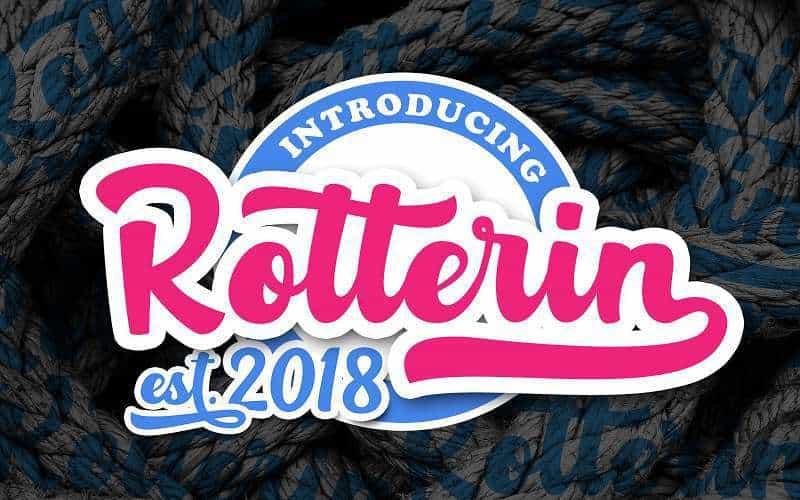
Discover Rotterin Script Font, part of the Brush Calligraphy collection—a versatile and unique font perfect for adding a personal touch to your projects. Download it for free and enjoy crafting designs with style, from invitations to social media posts. This font is available exclusively for personal use, giving you the freedom to create without limits. Unlock your creativity with Rotterin Script Font today!
Rotterin is layered script font is look unique, Rotterin is good to use in cricut sticker, Logo, greeting cards, quotes, sticker, posters, branding, name card, stationary, design title, blog header, art quote, typography art, modern envelope lettering or book design,…